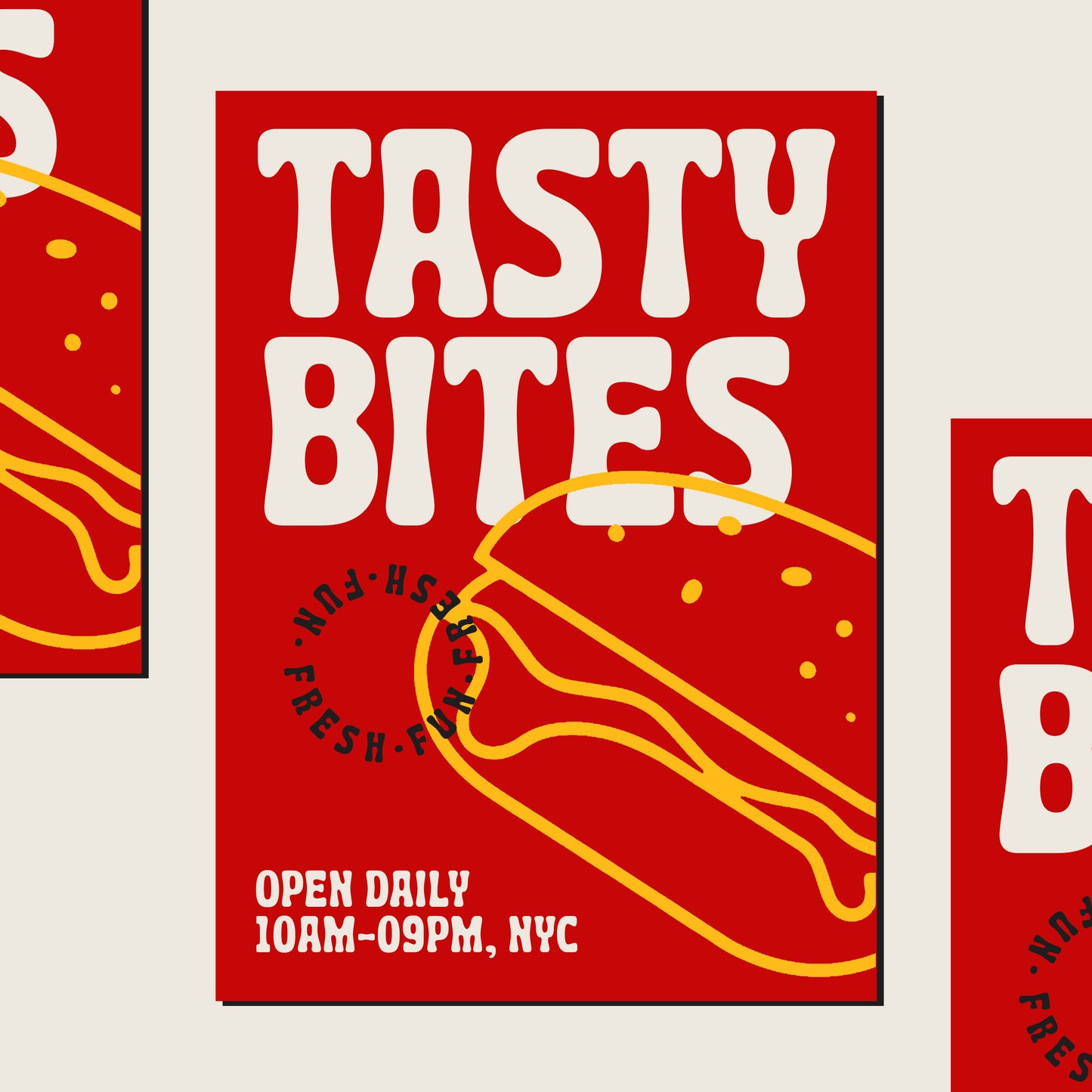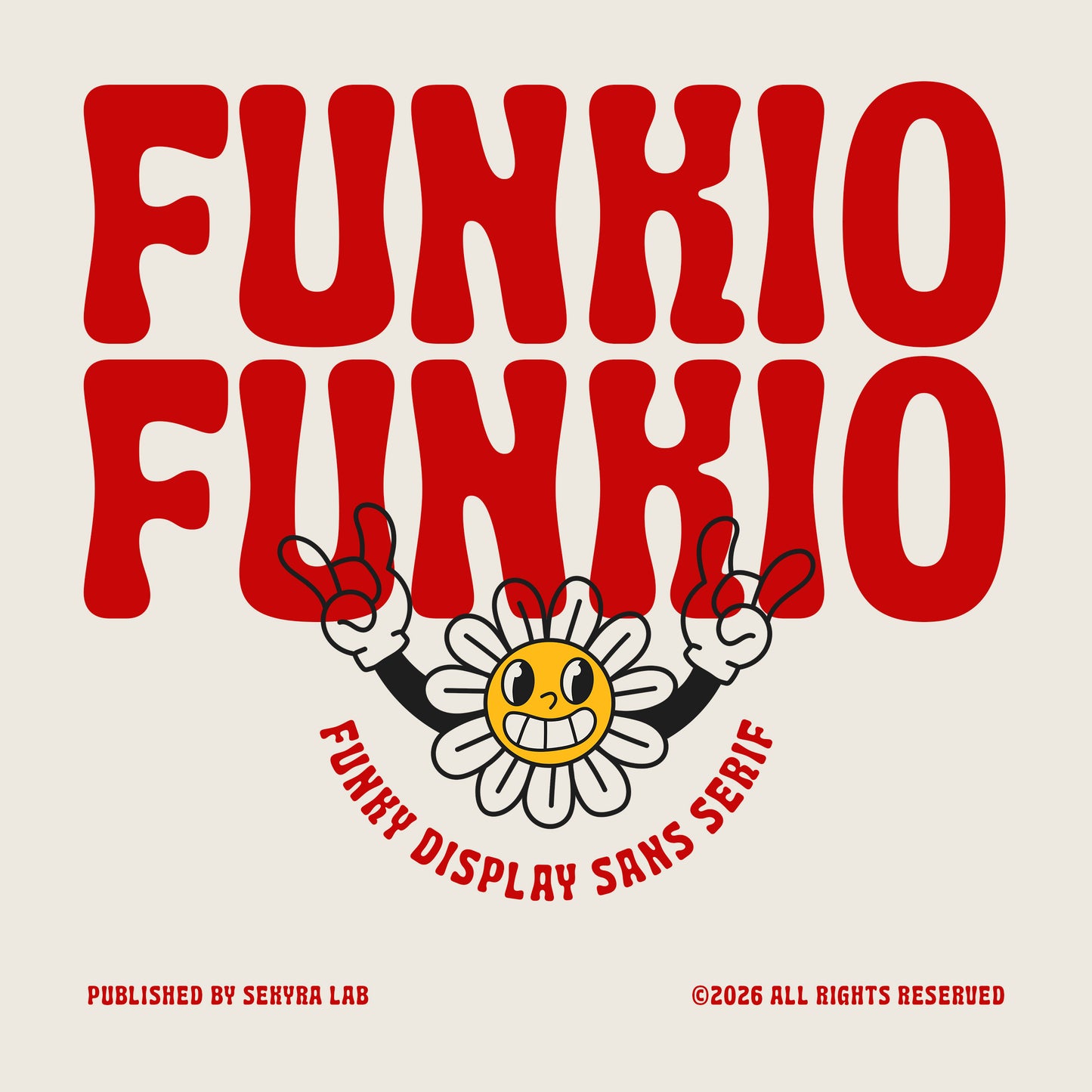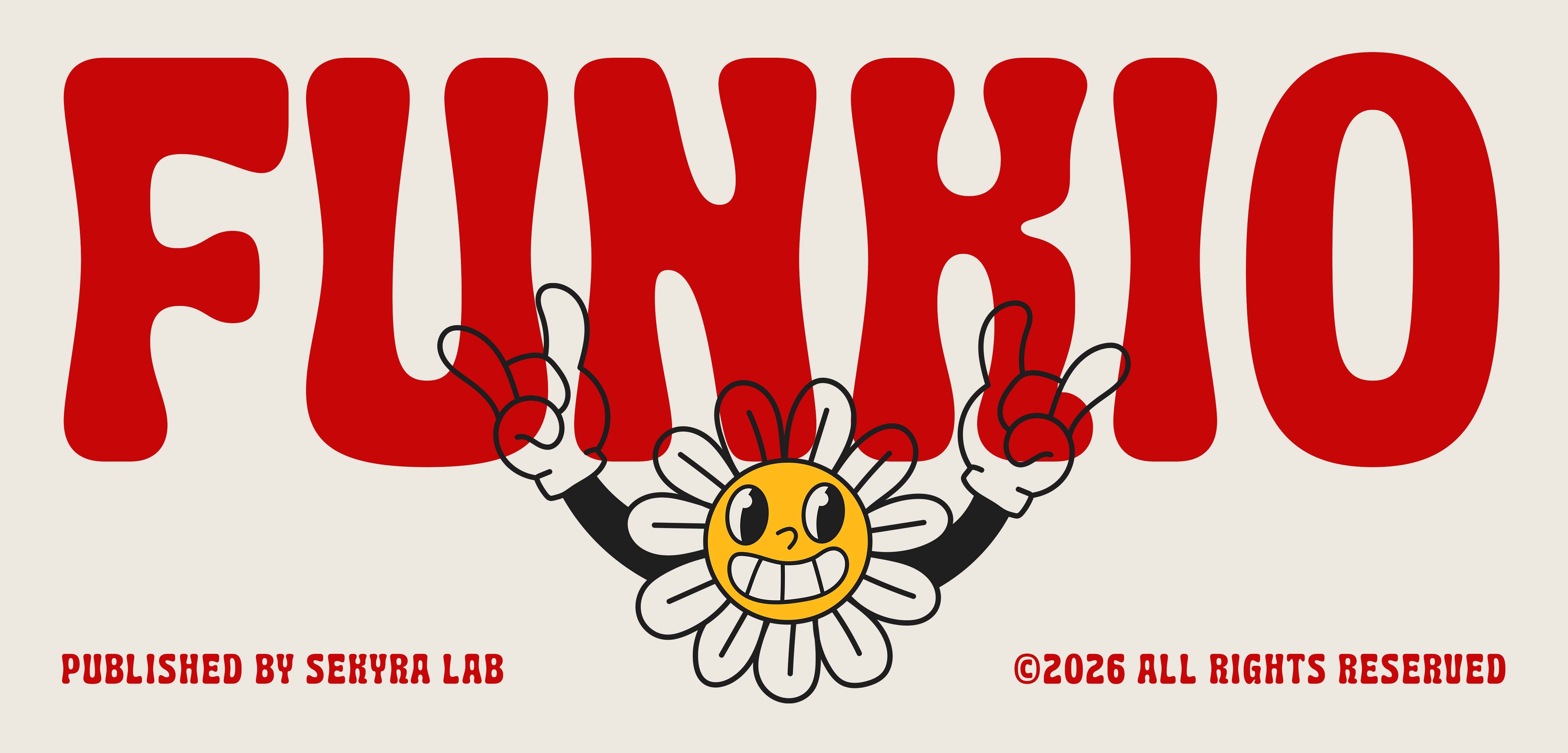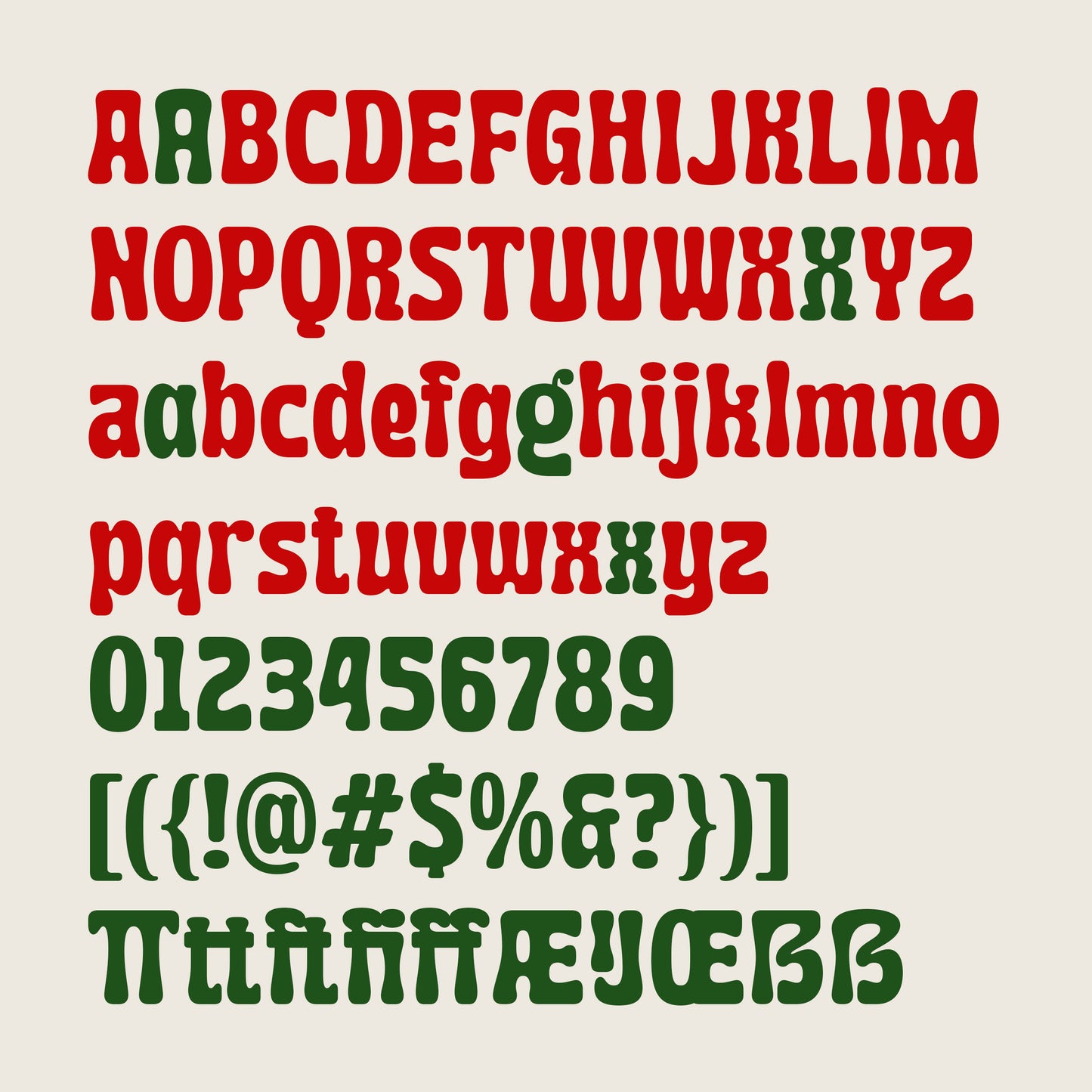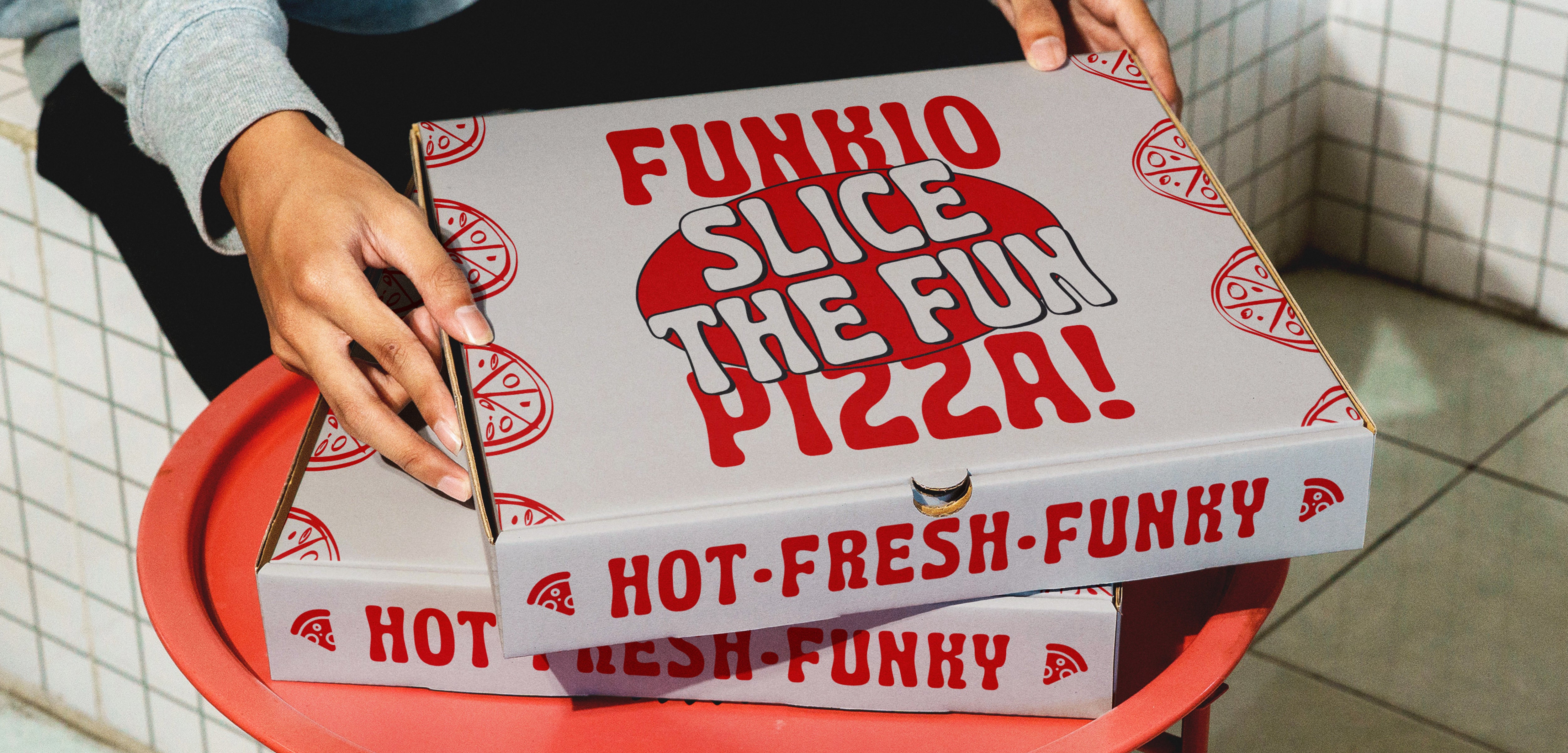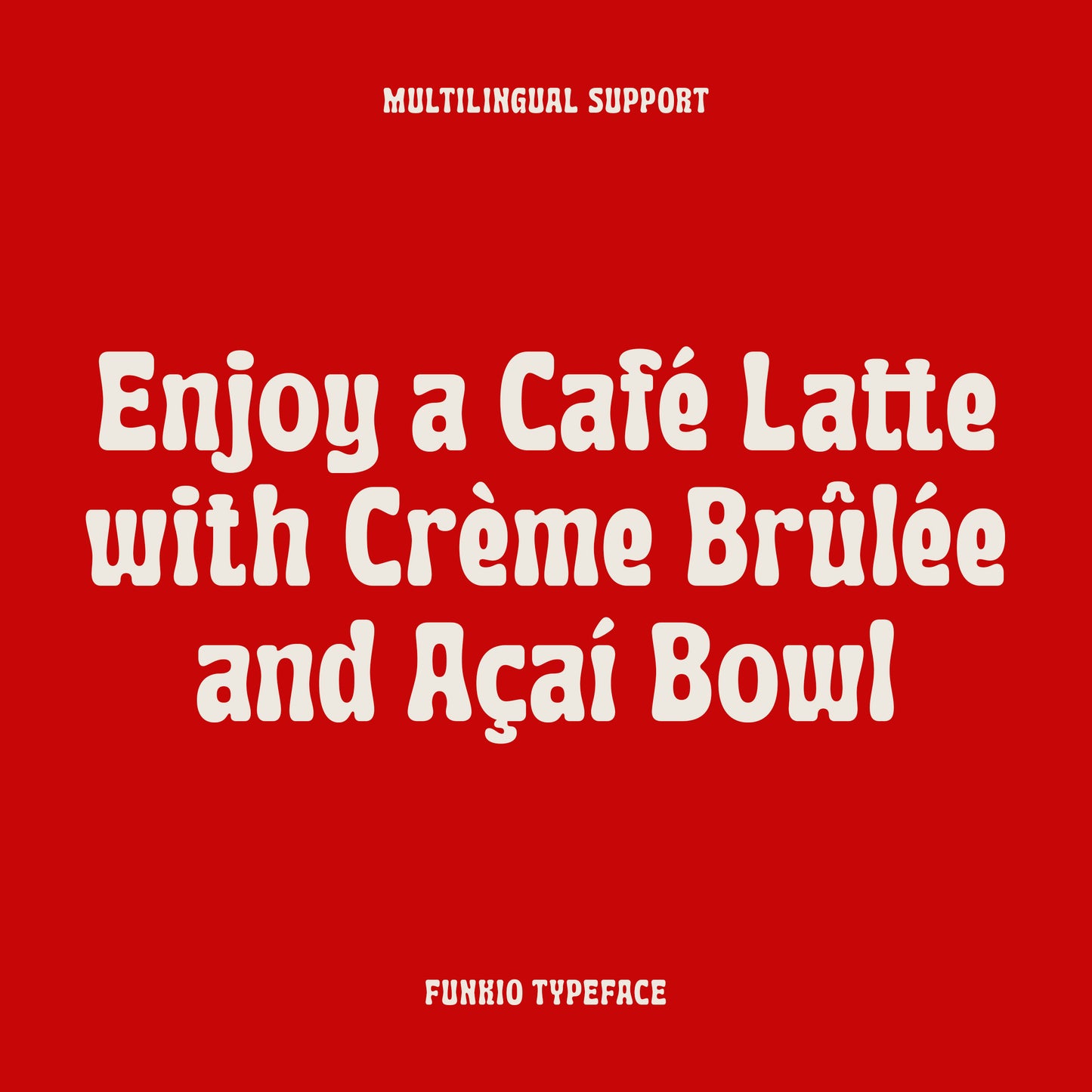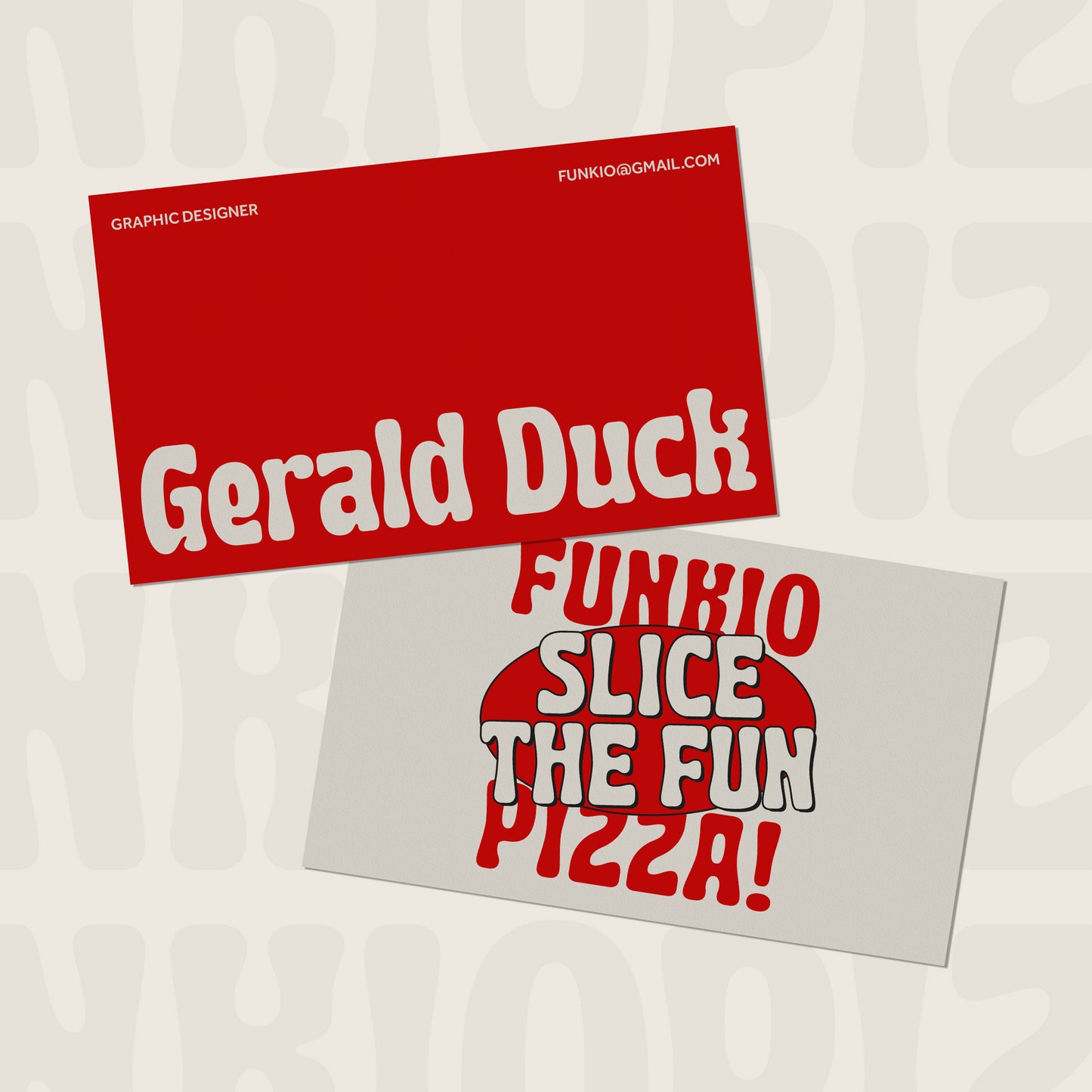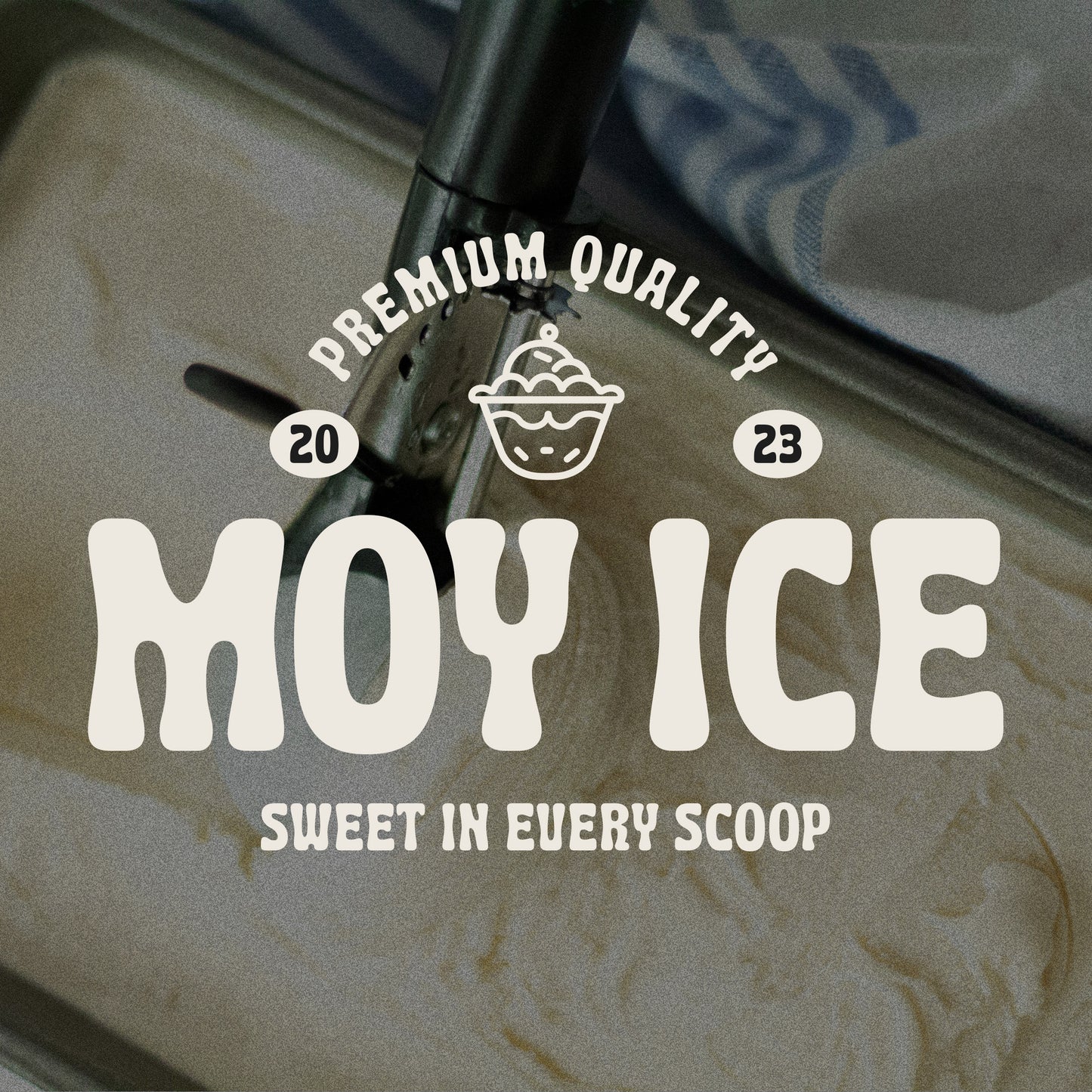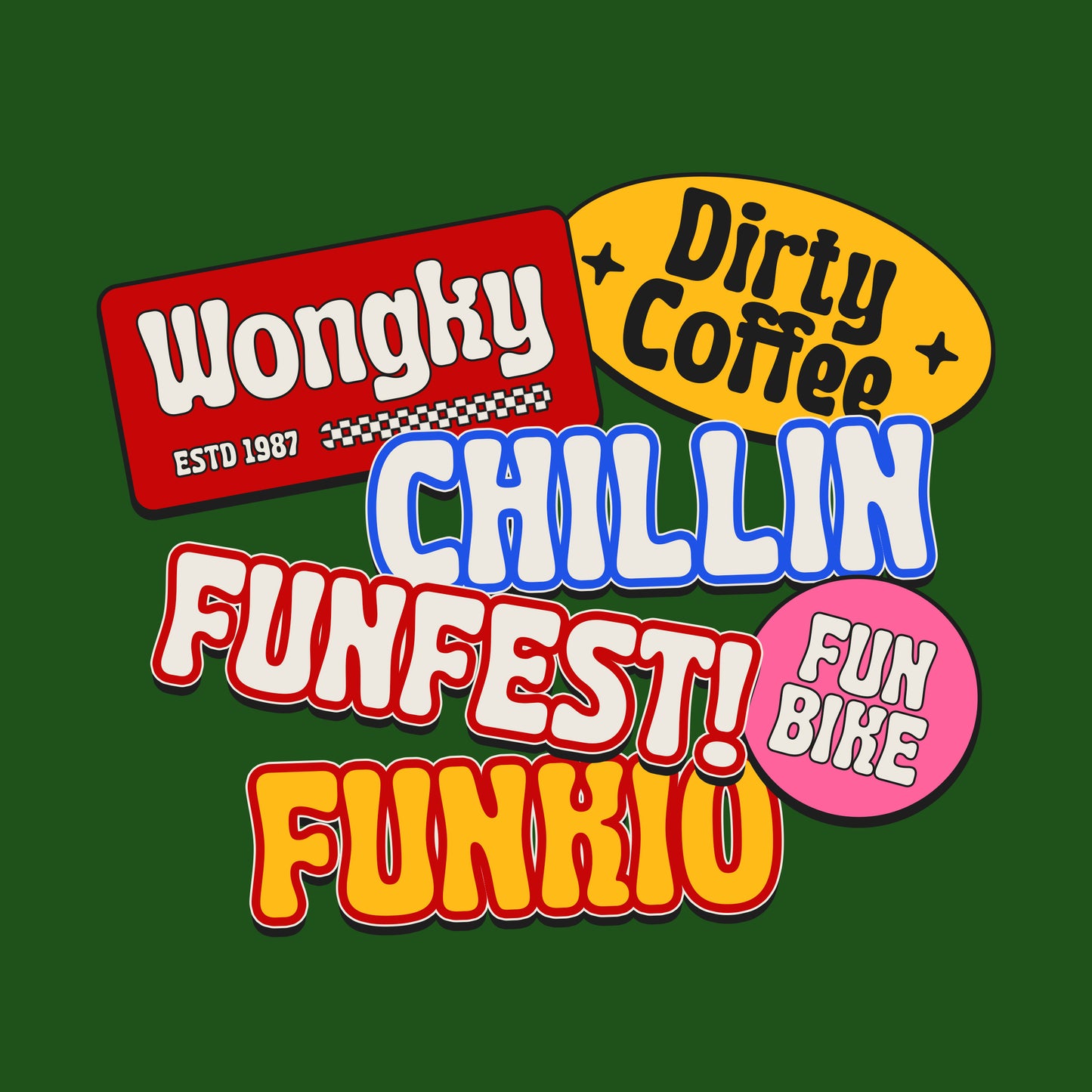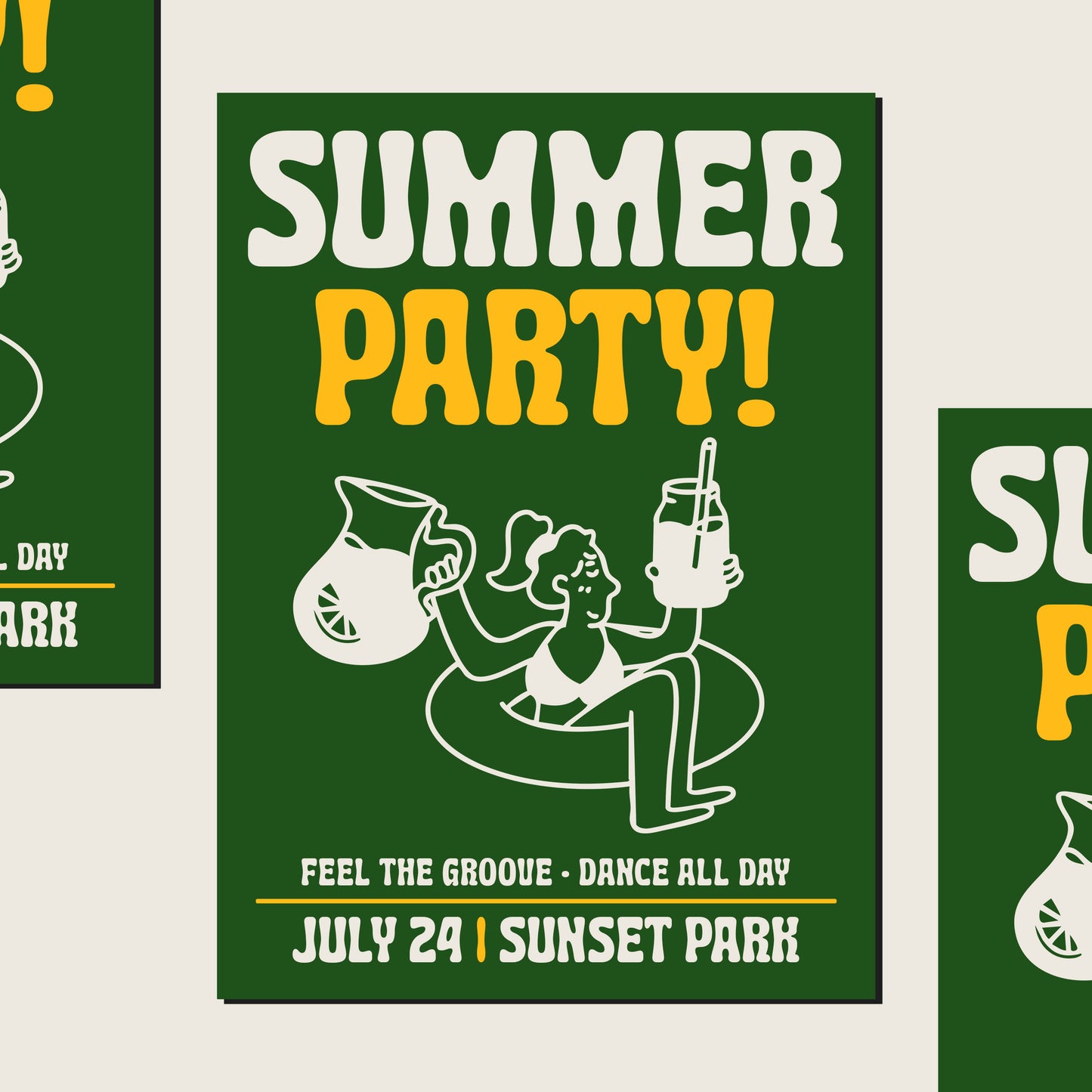
Funkio
Sekyra Lab
Funkio is a bold, playful display sans-serif font made to bring fun, energy, and personality to your typography. Chunky shapes and soft curves give it a retro-inspired feel that reads clearly while still keeping a strong, cheerful visual impact. Use it when you want letterforms that look friendly and confident, with a bit of funk built in.
This typeface works well for posters, packaging, branding, kids' designs, and food visuals—anywhere an expressive, upbeat tone matters.